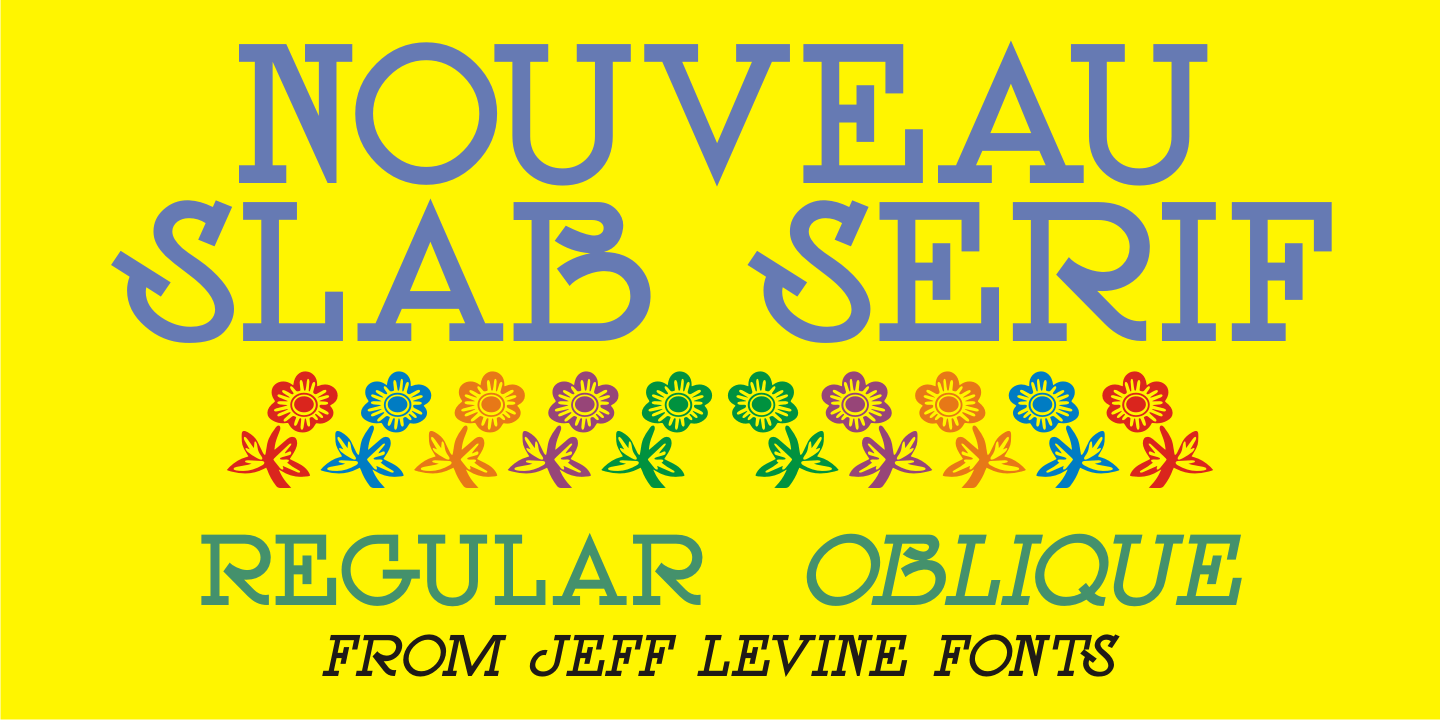
Nouveau Slab Serif
The cover of the 1902 sheet music for 'I'll Be Baby in Baby's Placeā€ features the title hand lettered in a wonderful Art Nouveau slab serif style with many eccentric letter forms.
This is now available as the digital typeface Nouveau Slab Serif JNL, in both regular and oblique versions.
Nouveau Slab Serif JNL Regular by Jeff Levine Fonts